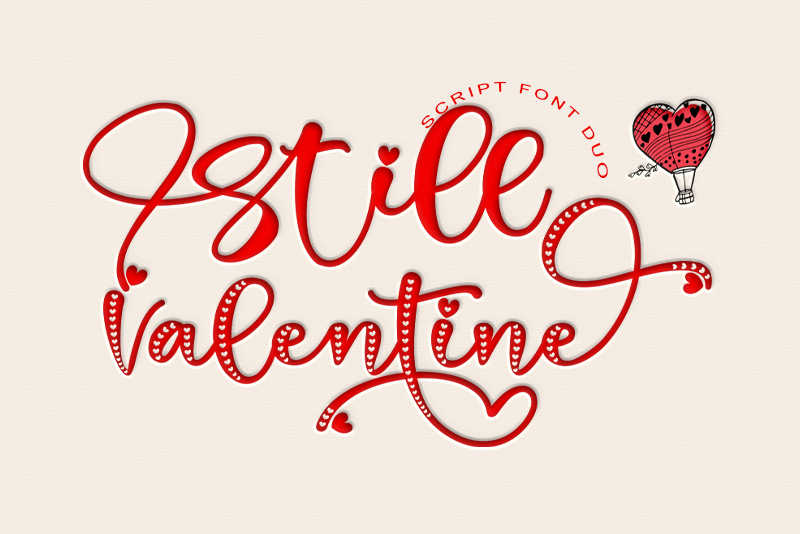
Still Valentine
Looking for a romantic, whimsical font that exudes charm and elegance? Look no further than this beautiful calligraphy typeface. Characterized by fluid, dancing baselines that bring its letters to life, this font is perfect for creating stunning designs that capture the essence of love and romance.
With its rounded, distinct characters, this font is a masterpiece that will add a touch of sophistication to any project. Its versatility knows no bounds, making it an excellent choice for a wide range of applications - from wedding invitations to romantic novels, or even as a bold statement piece in your next design.
But what truly sets this font apart is its ease of use. Thanks to PUA encoding, you'll have access to all the glyphs and swashes at your fingertips, allowing you to fully express your creative vision without restriction.